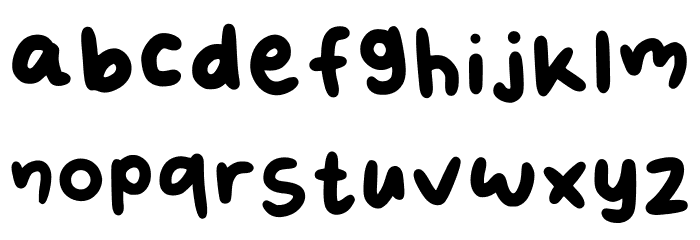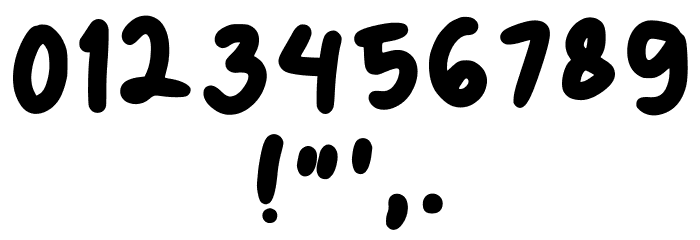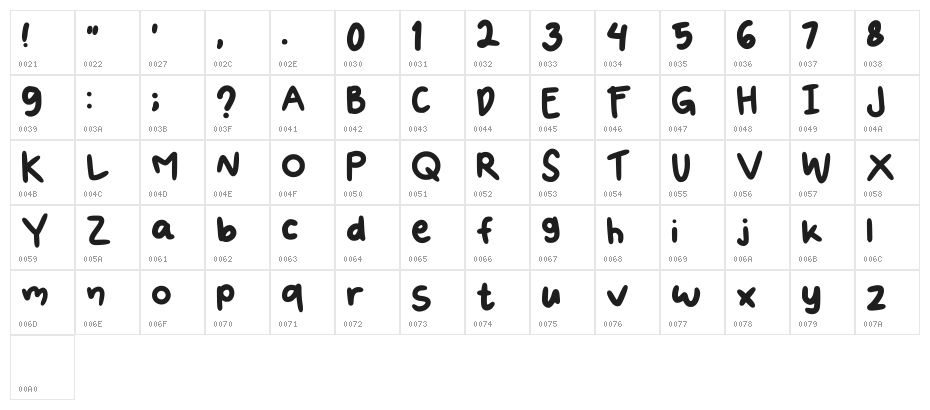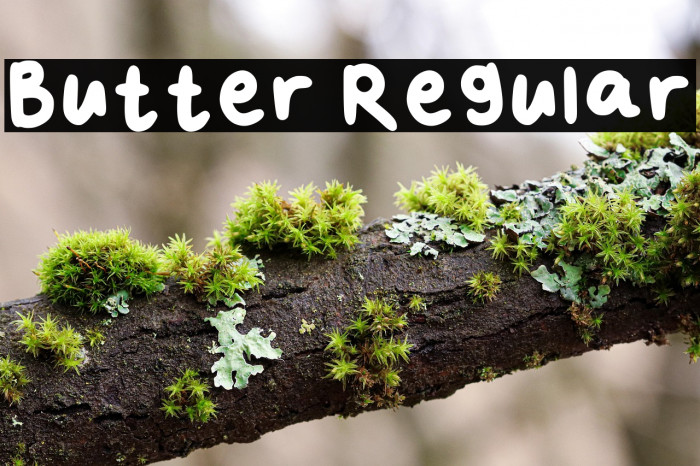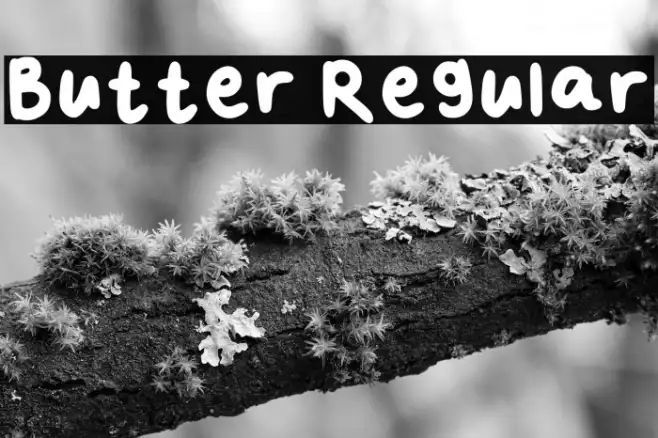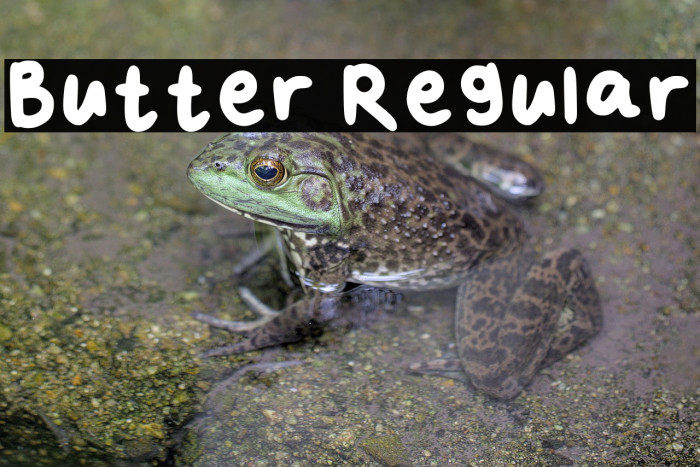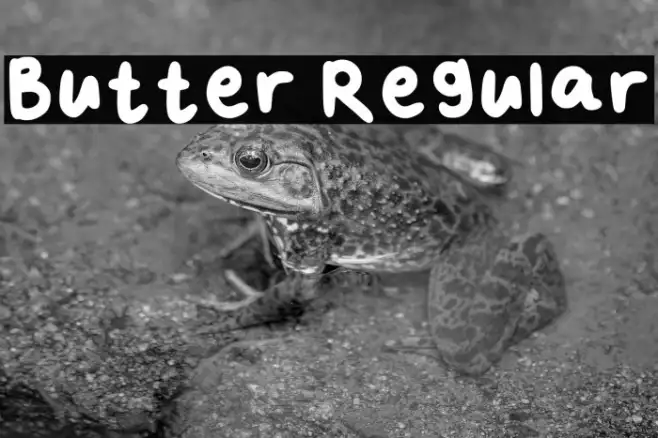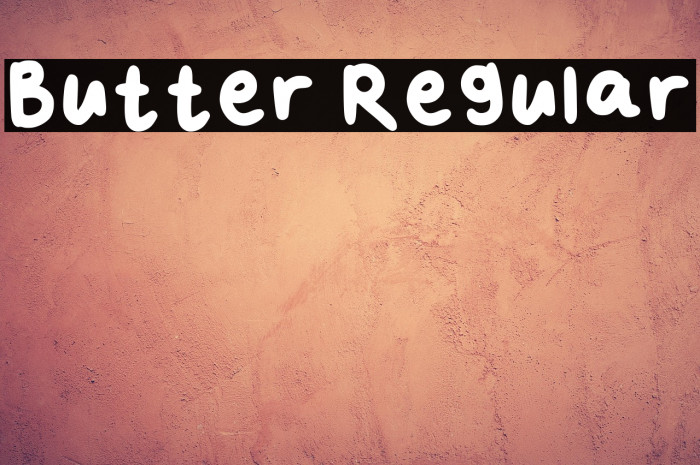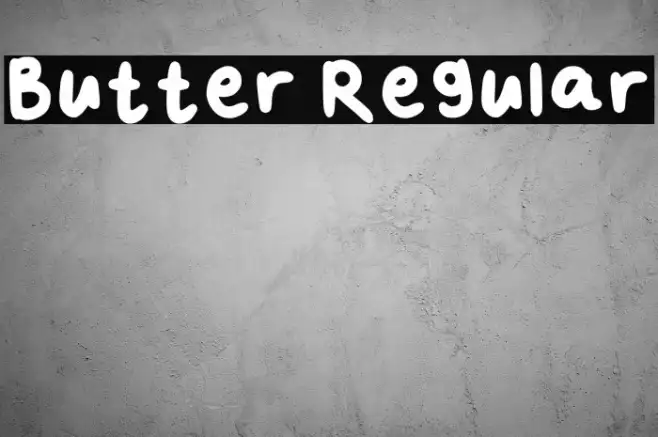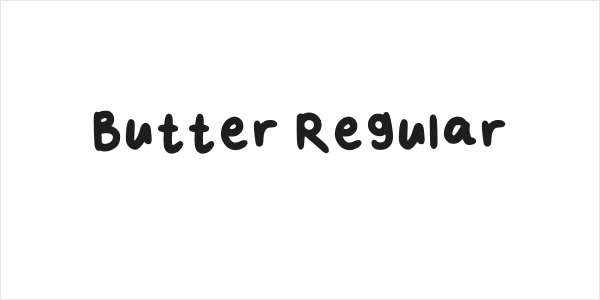
Butter Regular Font
This font features a playful and informal style, characterized by its rounded and slightly irregular letterforms. The strokes are bold and consistent, giving it a friendly and approachable appearance. Each character has a hand-drawn quality, with subtle variations that add to its charm. The overall look is casual and whimsical, making it suitable for projects that aim to convey a sense of fun and creativity. The font maintains good readability despite its unique style, with clear distinctions between each letter and number.
A playful, hand-drawn style font with bold, rounded characters.
- Proposed Projects: Ideal for children's books, playful branding, casual invitations, and creative posters.
- Overall Style: Casual, Playful
- Use Case: Headlines, Logos, Informal Text